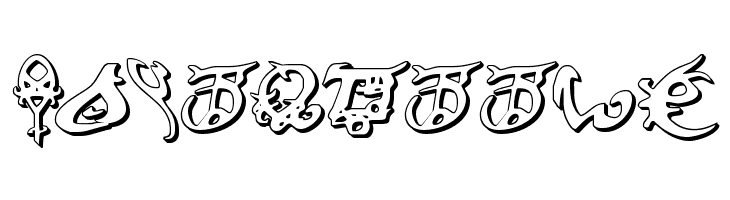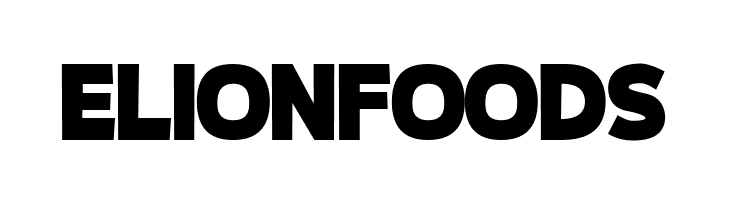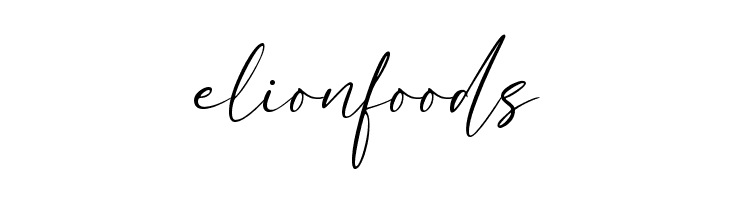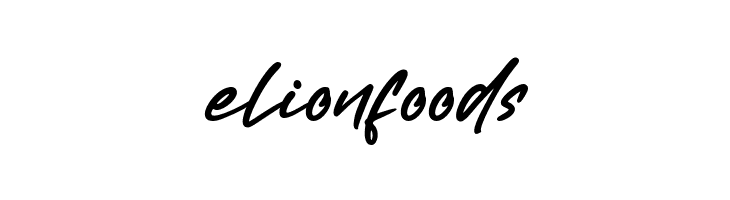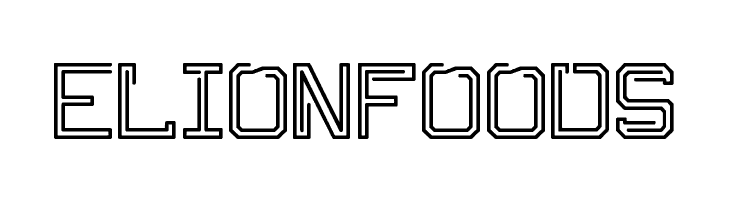
A bold, flowing script font with a playful, handwritten style.
A bold, italicized outline font with a dynamic and geometric style.
An ornate and mystical font with intricate, decorative letterforms.
A bold, jagged font with sharp, angular shapes for a rugged look.
A bold, geometric font with strong lines and a modern aesthetic.
A flowing, cursive script font with elegant, interconnected letters.
A flowing, cursive handwritten font with thin, elegant strokes.
A bold, cursive handwritten font with dynamic and expressive strokes.
A geometric, double-line font with a modern, technical look.
A bold, playful script font with a handwritten feel.